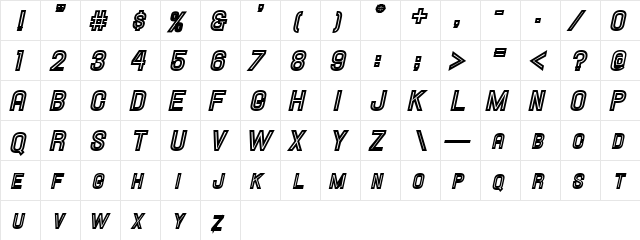
Hallandale Inline SC It. JL Regular
| Foundry | Jeff's Fonts & Dingbats |
| Designer | Jeffrey N. Levine |
Design Context for Hallandale Inline SC It. JL Typeface
Hallandale Inline SC It. JL brings ornamental detail and strong personality to headlines and identities, where visual impact matters more than quiet functionality.
Font Pairing: Pair with a clean neutral sans-serif for body copy to let Hallandale Inline SC It. JL's character lead without overwhelming the composition.
Pro Tip: Treat Hallandale Inline SC It. JL as the centrepiece of your typographic hierarchy. One strong heading set in a decorative face can carry an entire layout.